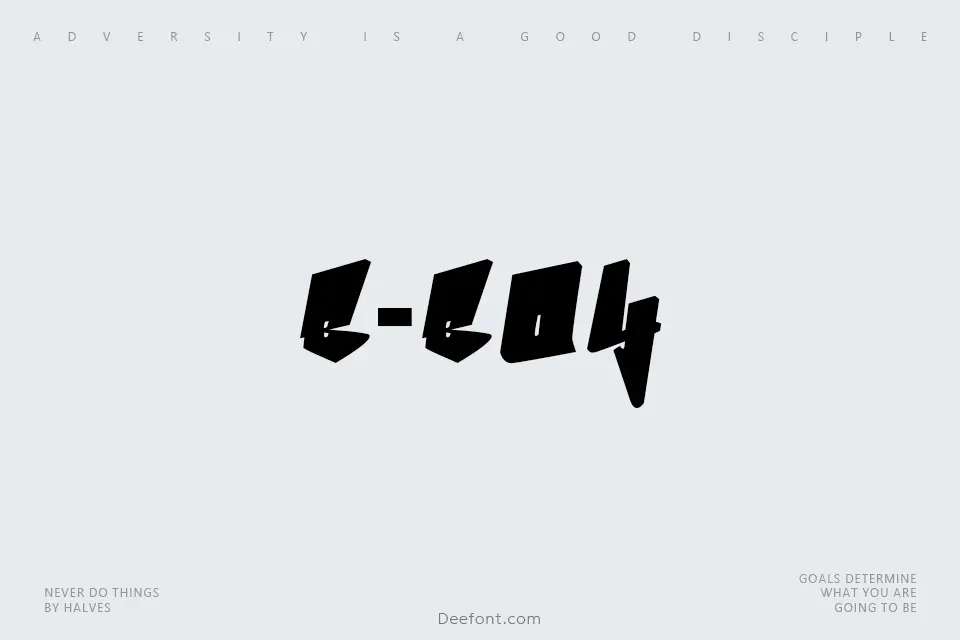
B-Boy Font
B-Boy is a classic old-school hip-hop graffiti style font featuring the look of vintage breakdance competition fliers and DJ battles. This throwie-style typeface has even, straight edges with rounded corners and works exceptionally well with fat outlines. Perfect for creating authentic graffiti-inspired designs with a nostalgic breakdancing aesthetic.